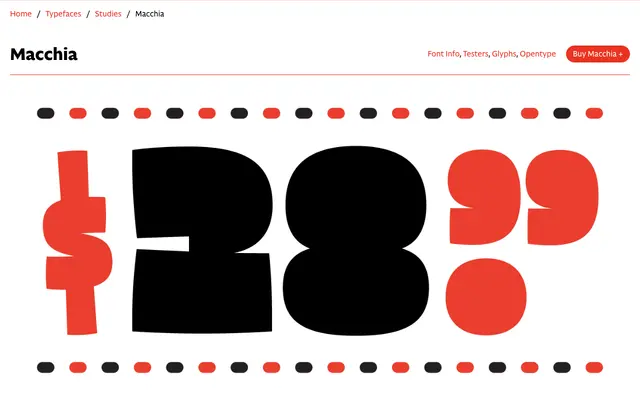
Macchia
CAST · Ruggero Magrì · 2020
A counterless display sans by Ruggero Magrì rooted in Italian 1930s lettering, with blotted forms and a broad-nib calligraphic energy built for loud headlines and book jackets.
Emerging from Magrì's experiments in broad-nib calligraphy, Macchia updates the Italian counterless sans tradition of the 1930s with a new lowercase set that the originals never had. Tight fitting and a large x-height make it compact at headline sizes, while tapering apertures and rounded terminals pull the design away from rigid modernist monoliths toward something more playful. Available in a single Black weight, it is unashamedly a face for shouting.
A counterless display sans rooted in Italian 1930s lettering traditions, with blotted counters and high-contrast dark forms that preclude running text use; squarely a display category face.